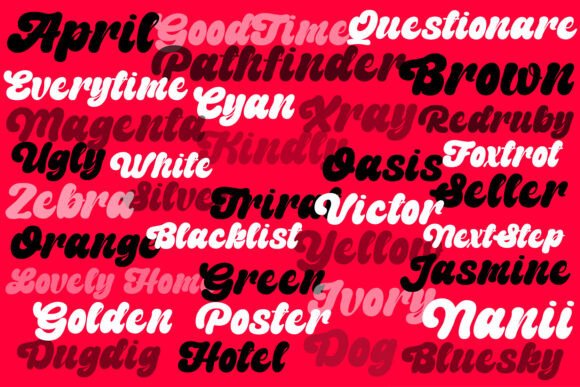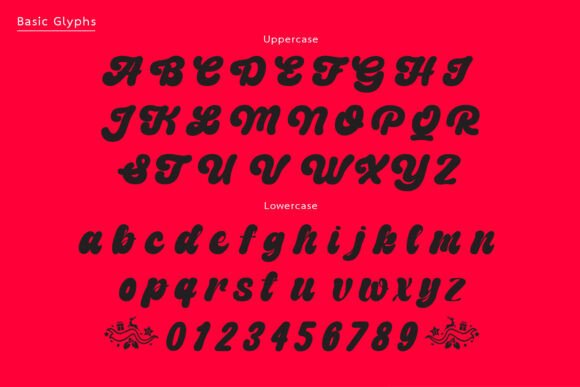
Introducing Christmas Laugh Font: The Ultimate Festive Typeface for Your Holiday Designs
Are you looking for a font that embodies the playful and festive spirit of Christmas? Look no further than the Christmas Laugh Font! Inspired by retro design, this fun and lively font is perfect for adding a touch of whimsy to your holiday projects. In this article, we’ll dive into the unique features of Christmas Laugh Font and explore how you can use it to create stunning designs that capture the essence of the season.
A Retro-Inspired Font with a Playful Twist
Christmas Laugh Font is a bold and bubbly typeface that draws inspiration from retro design. Its characters are designed to resemble round, balloon-like shapes, giving it a playful and cheerful appearance. The font’s overall look is energetic and lively, making it perfect for creating festive designs that grab attention. Whether you’re working on a holiday card, a Christmas party invitation, or a festive social media post, Christmas Laugh Font is sure to add a touch of fun and personality to your project.
Unique Features of Christmas Laugh Font
So, what sets Christmas Laugh Font apart from other festive fonts? Here are a few of its unique features:
- Bold and Bubbly Design: Christmas Laugh Font features a bold and bubbly design that’s sure to make your designs stand out. Its round, balloon-like shapes give it a playful and cheerful appearance that’s perfect for the holiday season.
- Slight Slant for Added Energy: The font’s slight slant creates a sense of movement and energy, adding to its playful and lively vibe.
- Retro-Inspired Design: Christmas Laugh Font draws inspiration from retro design, giving it a unique and nostalgic feel that’s perfect for holiday designs.
Christmas Laugh Font is perfect for designers and crafters who want to add a touch of personality to their holiday projects. Whether you’re creating:
- Festive social media posts and graphics
- Christmas party decorations and signage
- Handmade gifts and crafts
Christmas Laugh Font is the perfect choice. Its playful and lively design is sure to add a touch of fun and whimsy to your project, making it a standout in a sea of traditional holiday designs.
Tips for Using Christmas Laugh Font
Here are a few tips for using Christmas Laugh Font in your holiday designs:
- Pair with a Simple Background: Christmas Laugh Font is bold and playful, so pair it with a simple background to let it shine.
- Experiment with Colors: The font’s playful design lends itself well to bright and bold colors. Experiment with different color combinations to find the perfect look for your design.
- Add Some Festive Flair: Use Christmas Laugh Font to add a touch of festive flair to your design. Add some holly, snowflakes, or other holiday elements to really make your design pop.
Christmas Laugh Font is a fun and lively font that’s perfect for adding a touch of personality to your holiday designs. Its bold and bubbly design, slight slant, and retro-inspired look make it a standout in the world of festive fonts. Whether you’re a designer or crafter, Christmas Laugh Font is the perfect choice for your holiday projects. So why wait? Download Christmas Laugh Font today and start creating stunning holiday designs that capture the essence of the season!